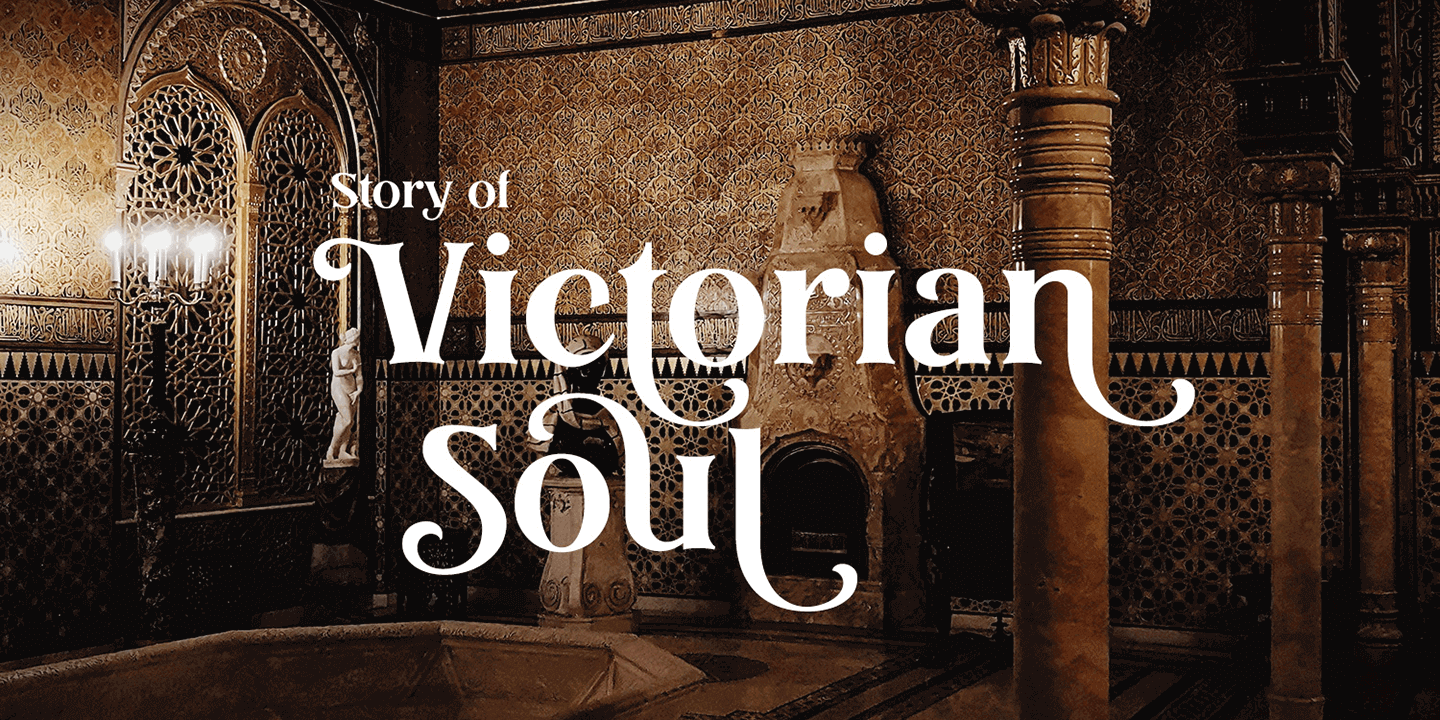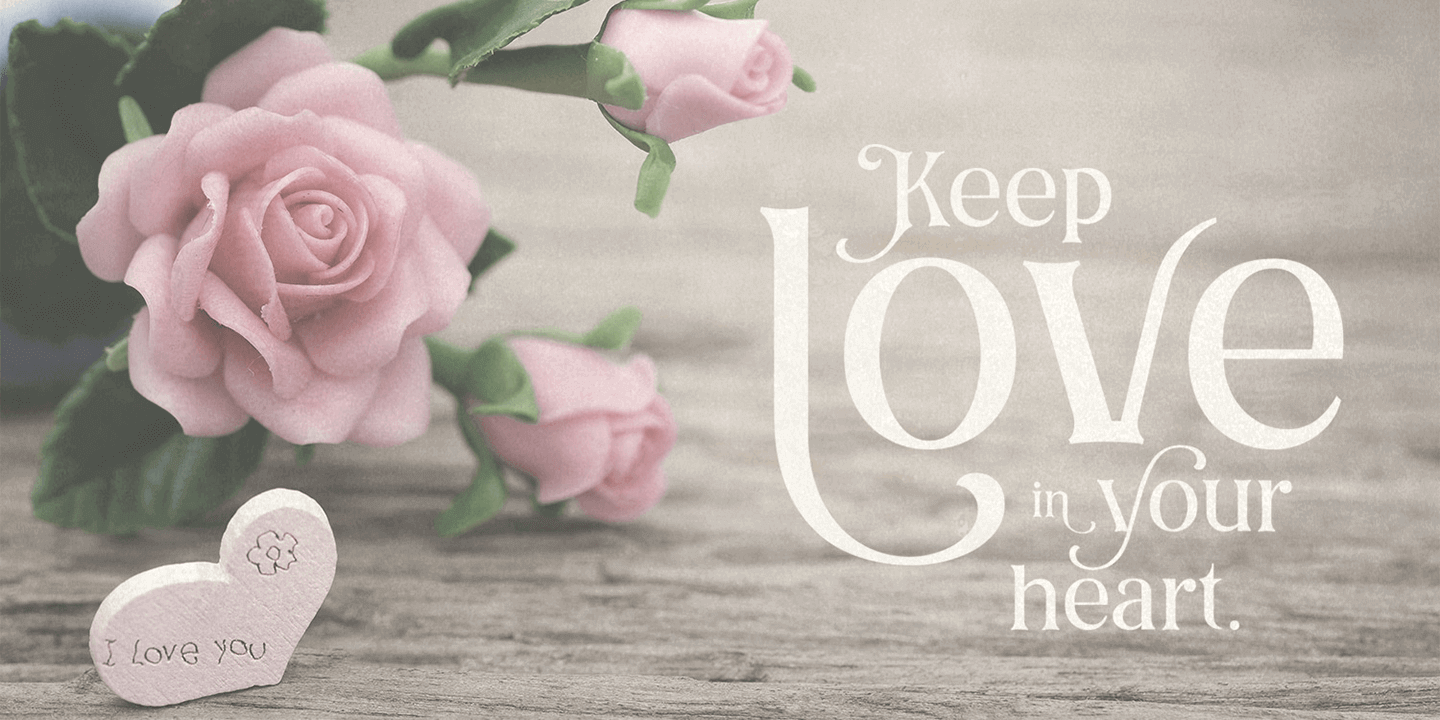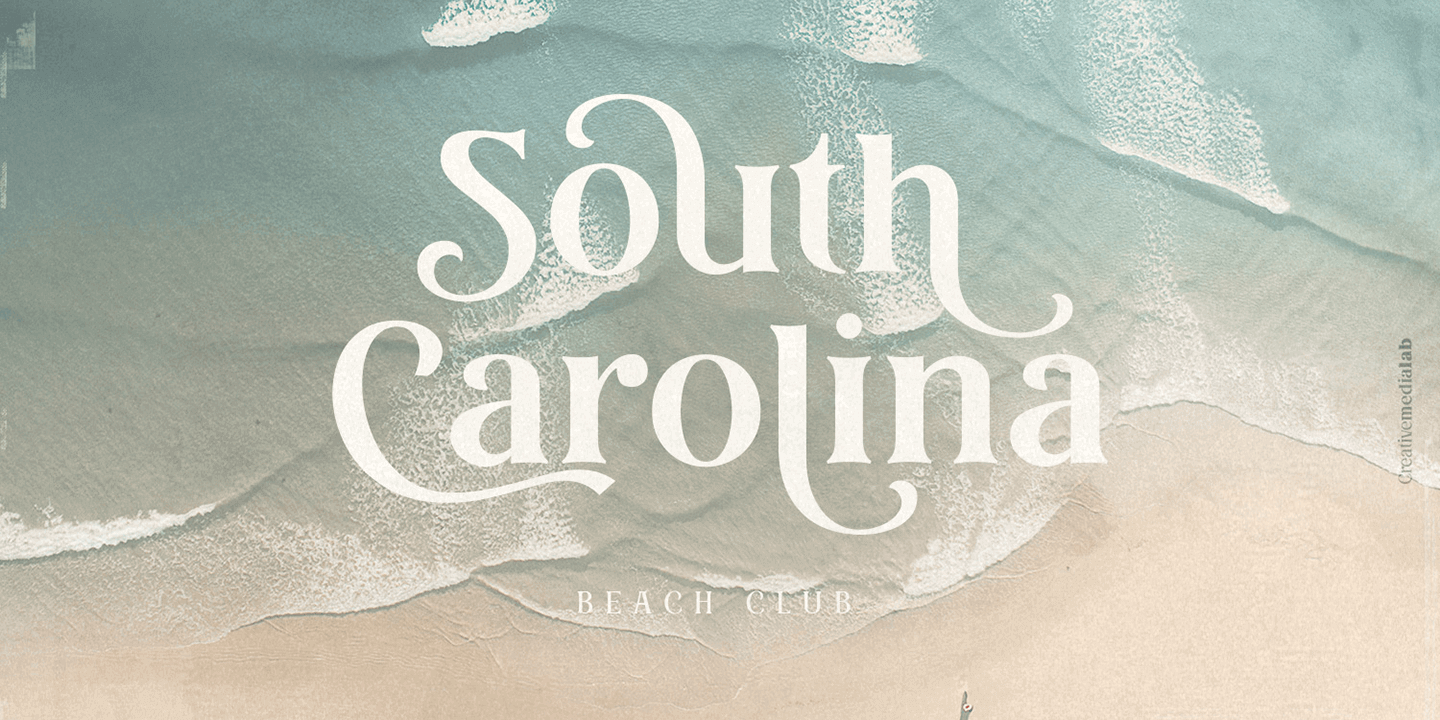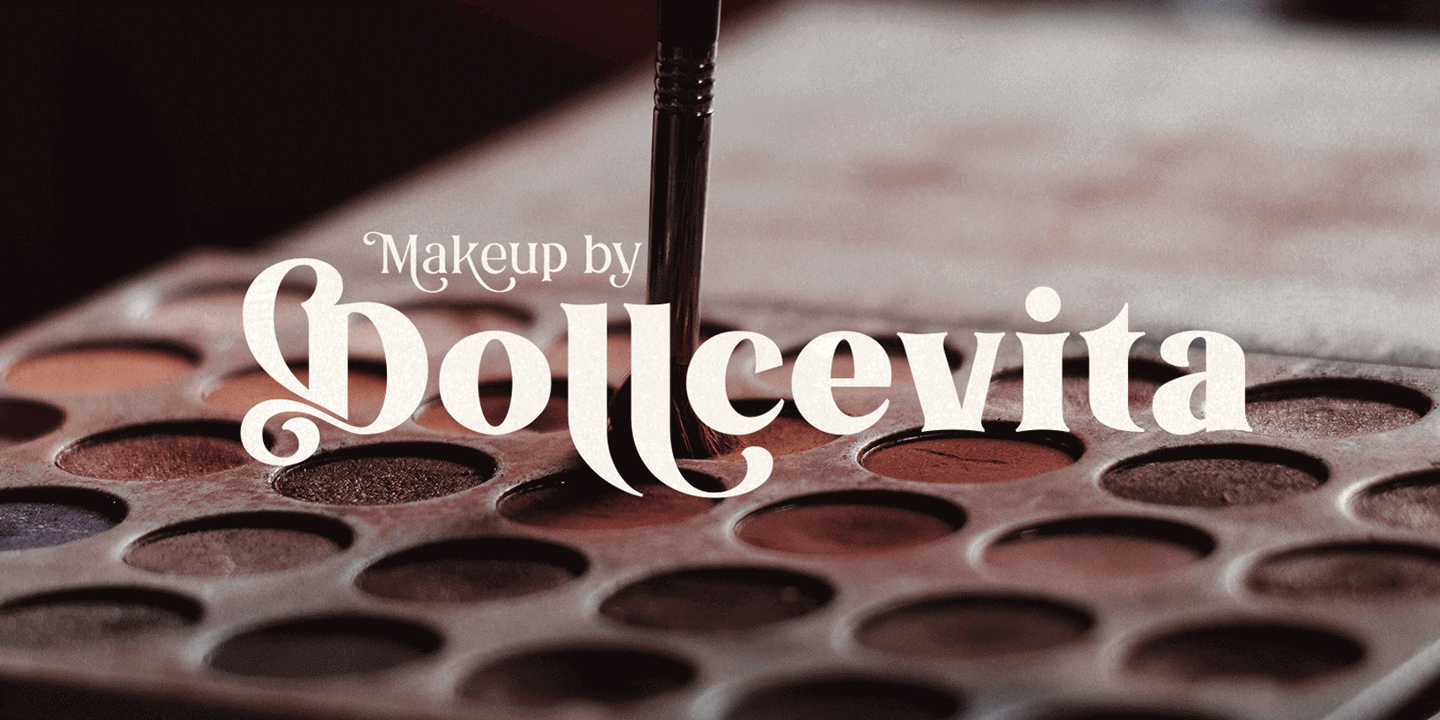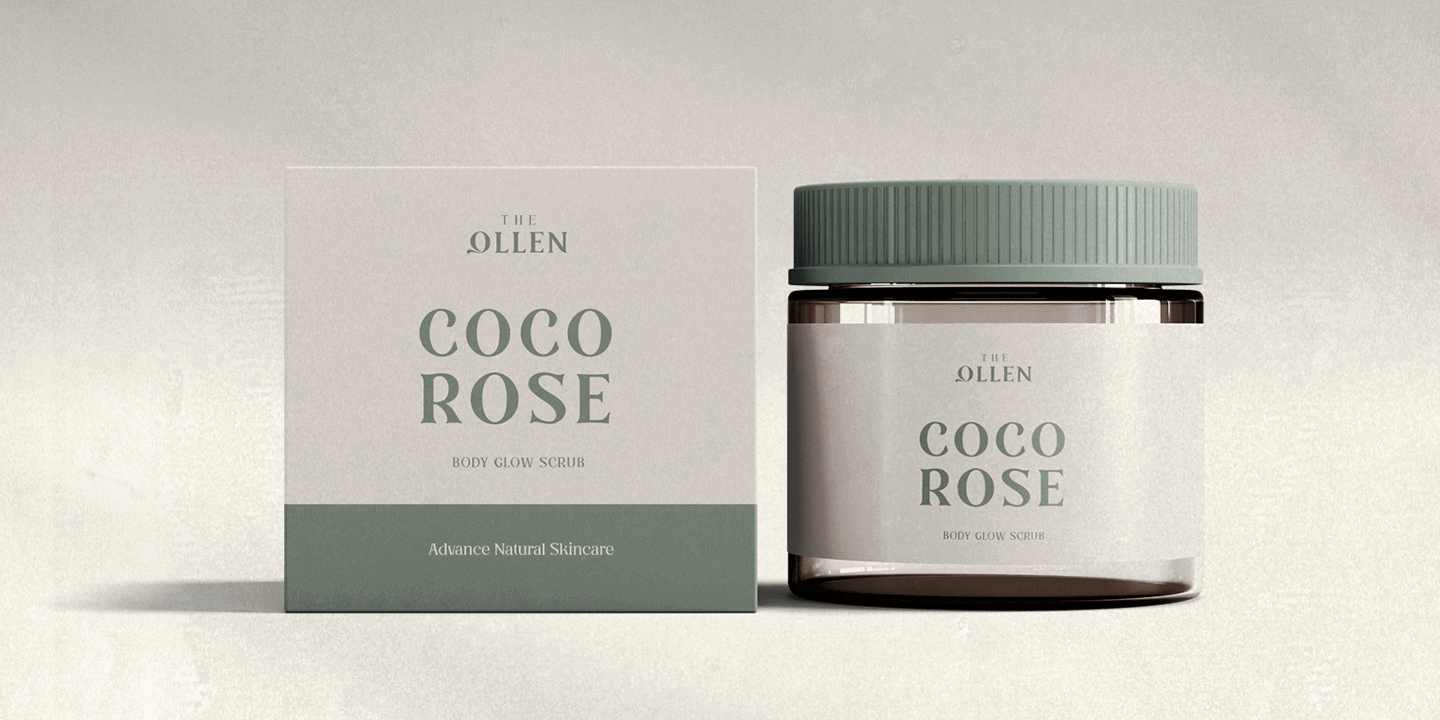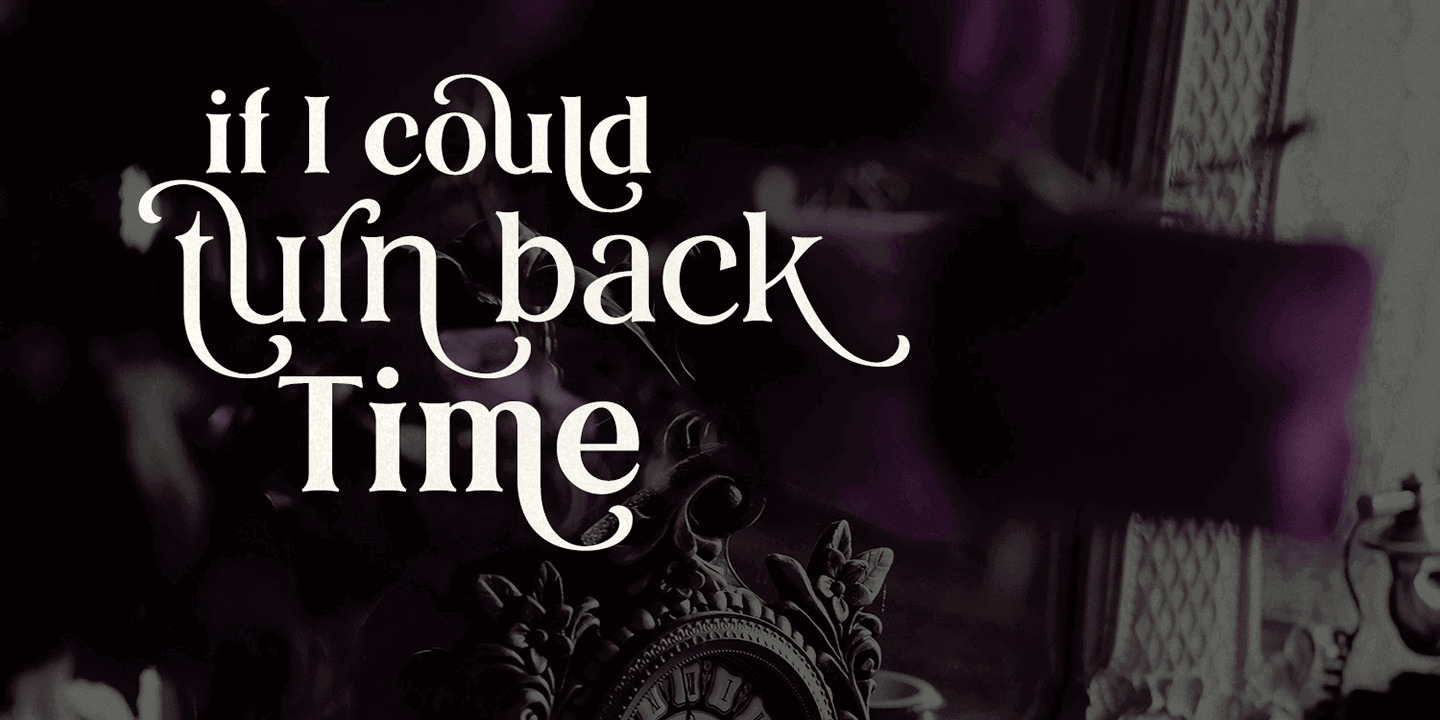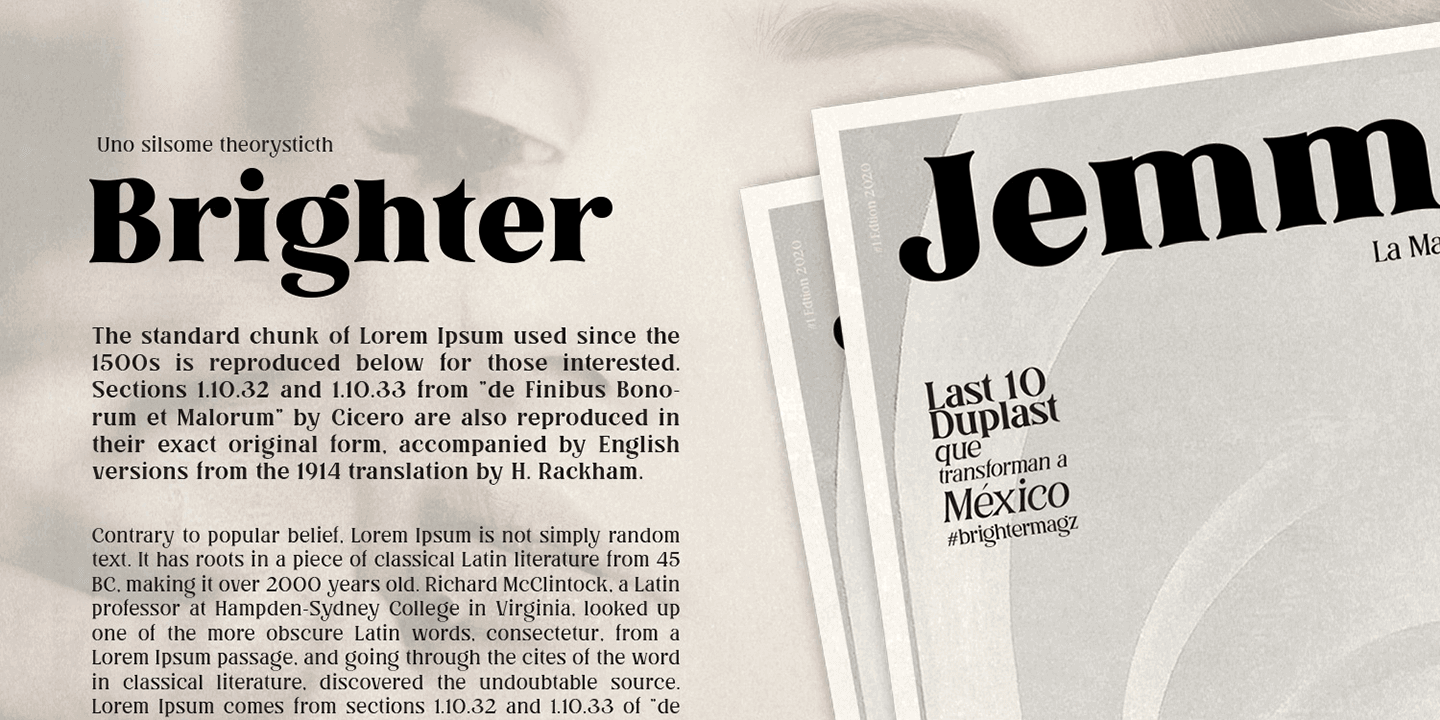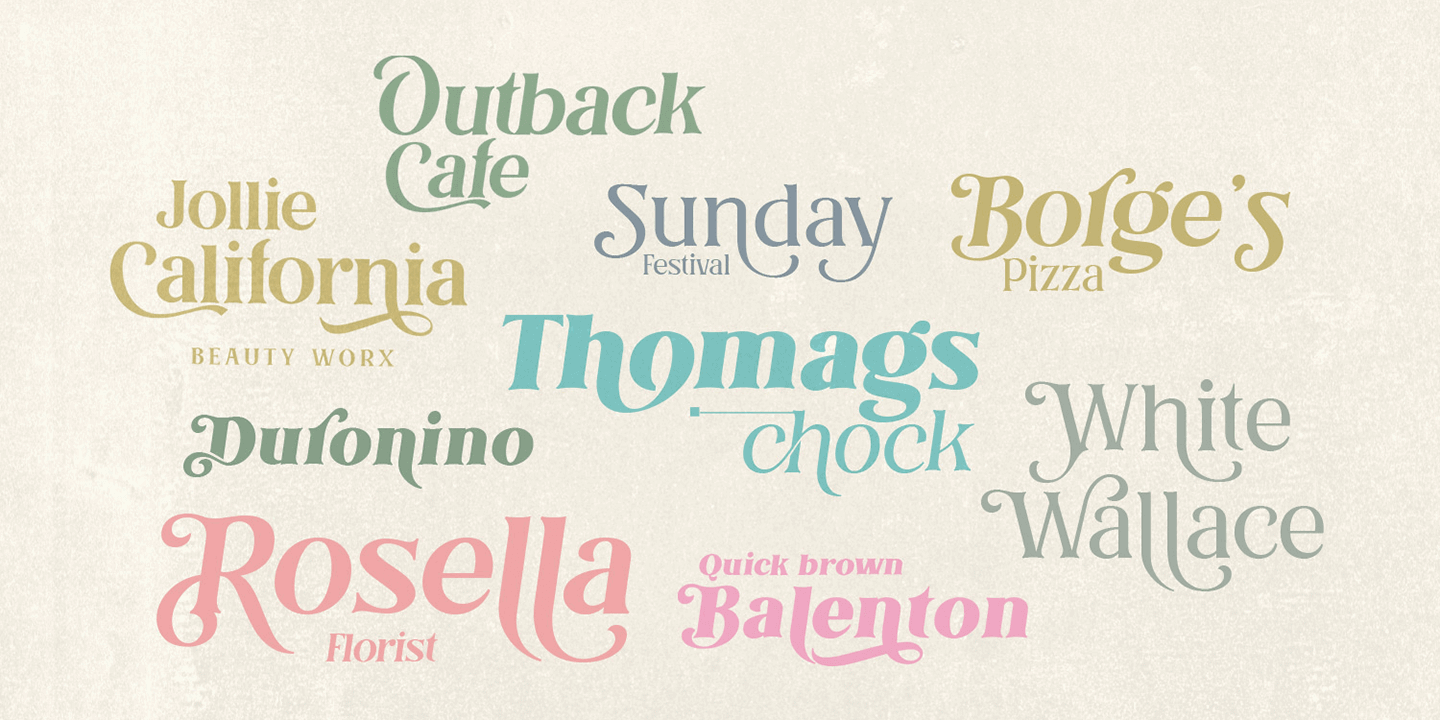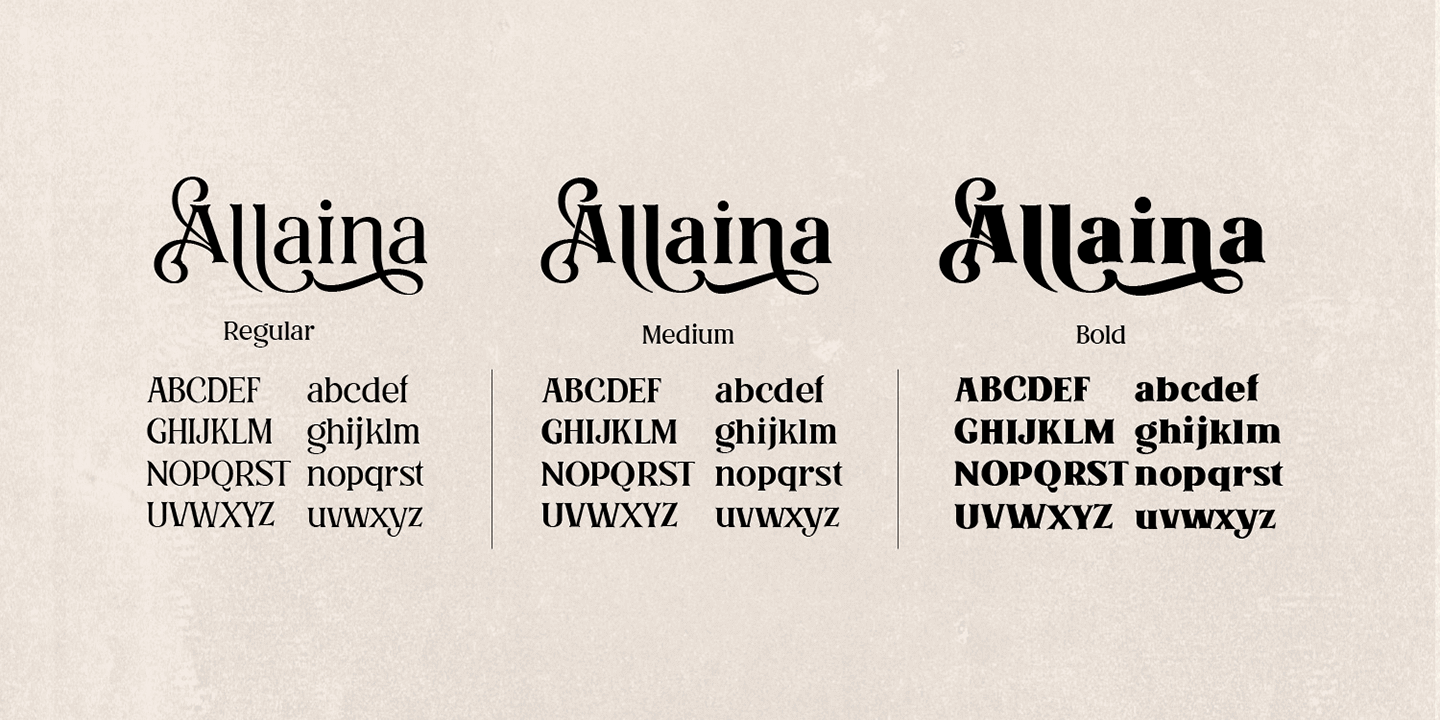
Allaina is a stylish and elegant Serif family consisting of three styles, Regular, Medium and Bold with matching italics. It has many alternates and some unique attractive ligatures.
This pretty serif family could be used for fashion, label packaging or elegant vintage style lettering. Combining standard letters with alternative letters wil give you beautiful and unique words.